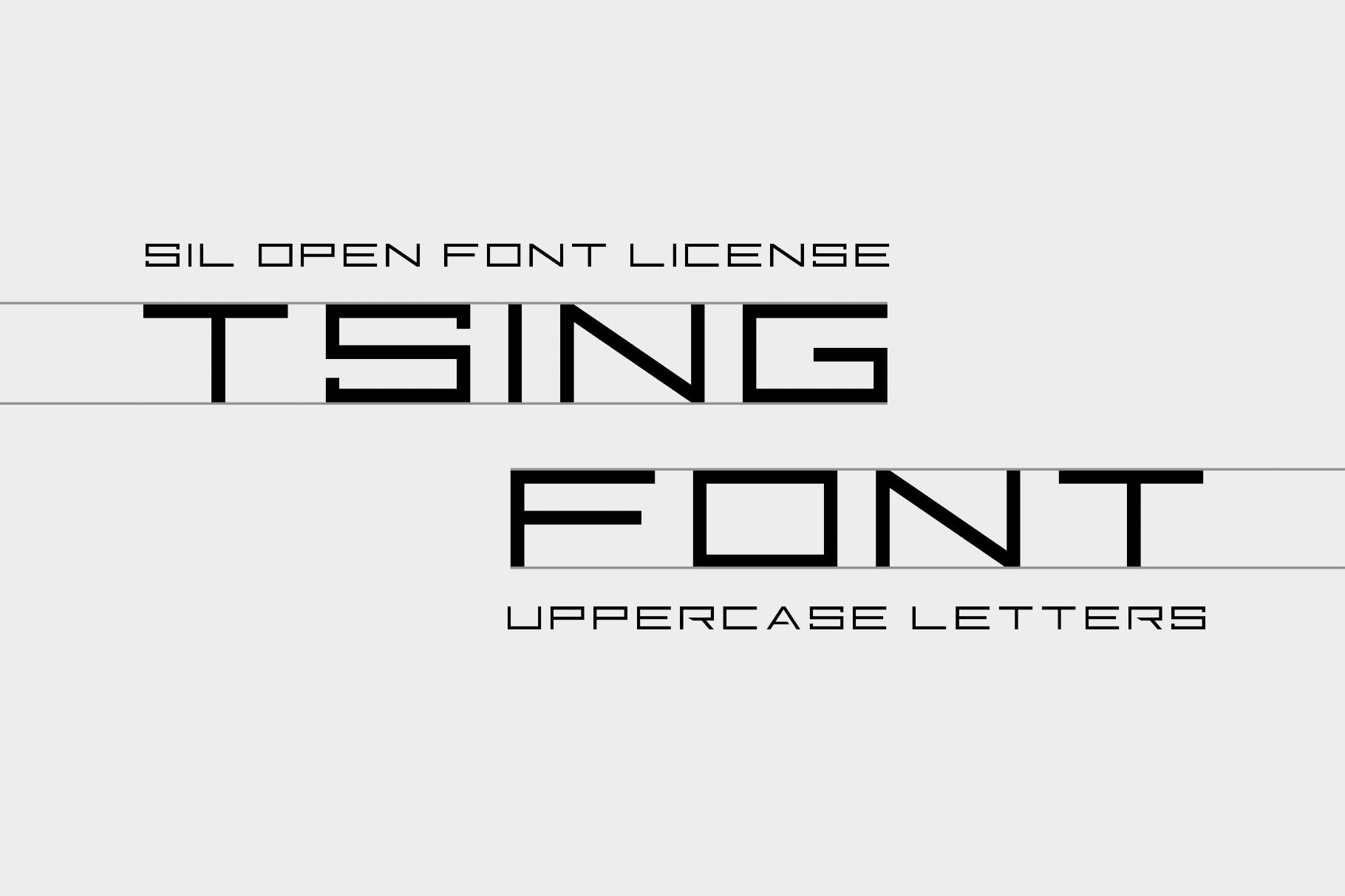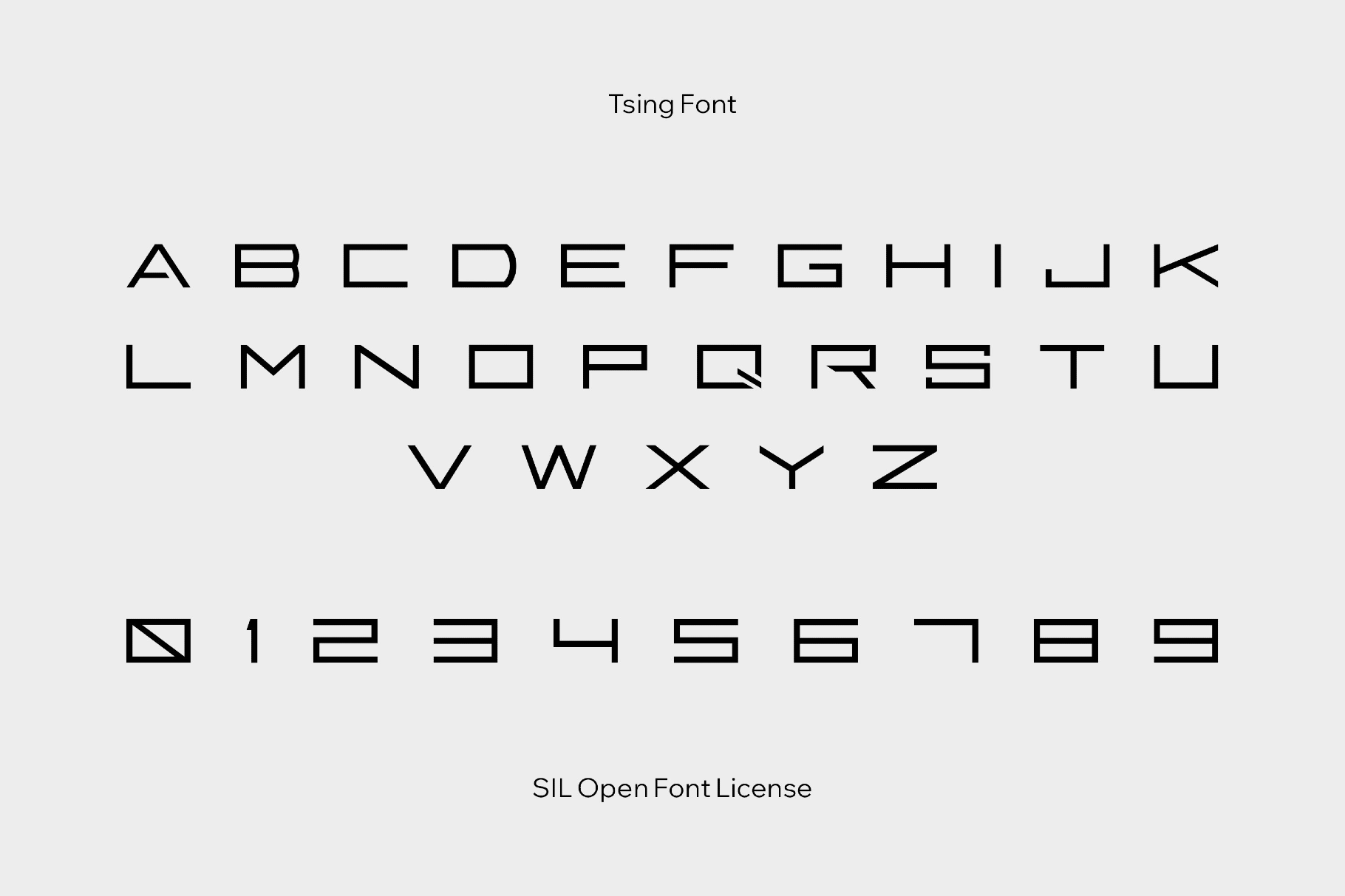
Tsing Space Font
Tsing
Tsing draws on the stark logic of retro-futurist control rooms and paperback science fiction. It pairs rigid geometry with a coded, signal-like cadence cut from a planetary grid. It takes advantage of the mood it sets rather than pure beauty.